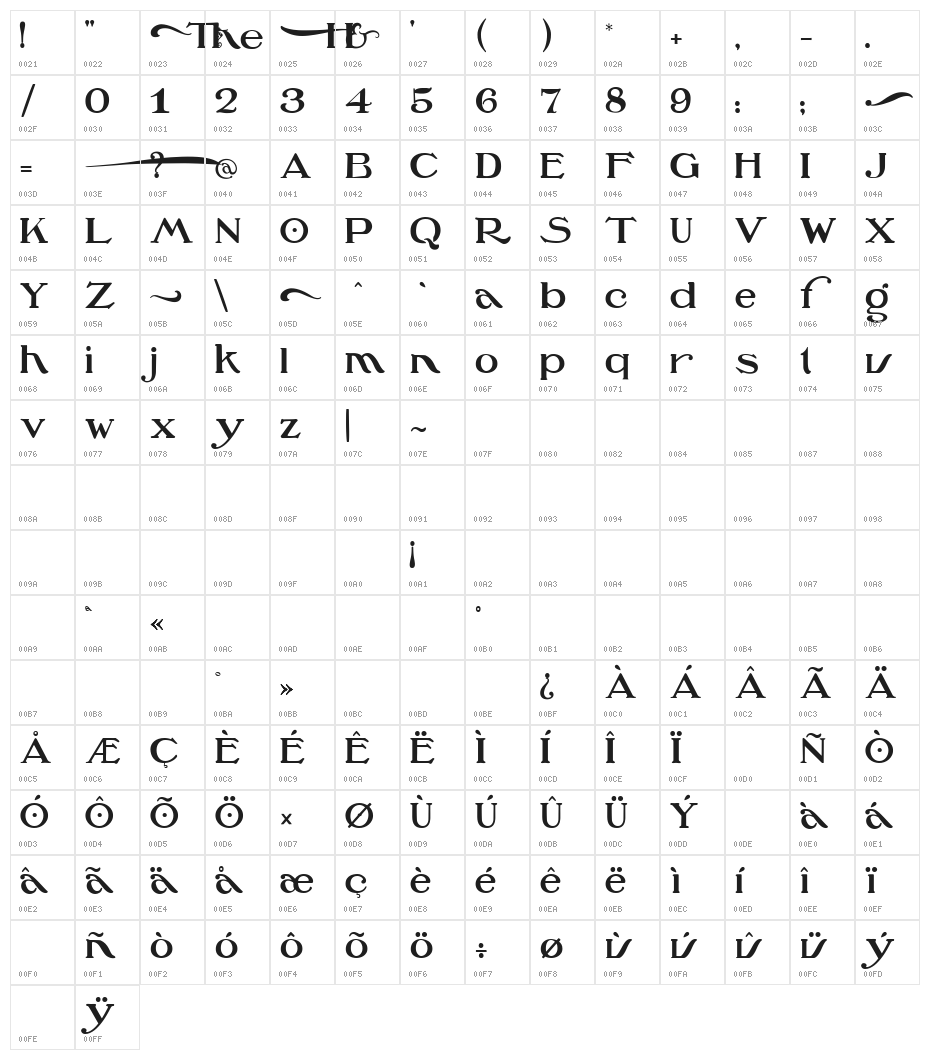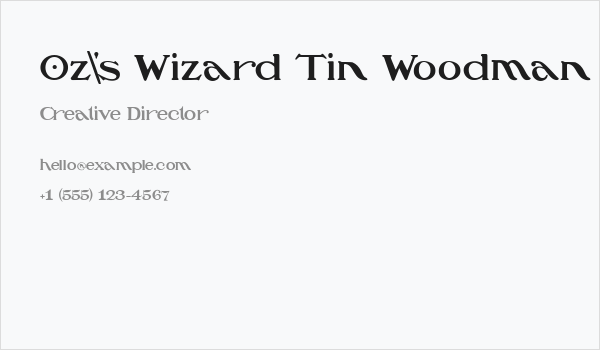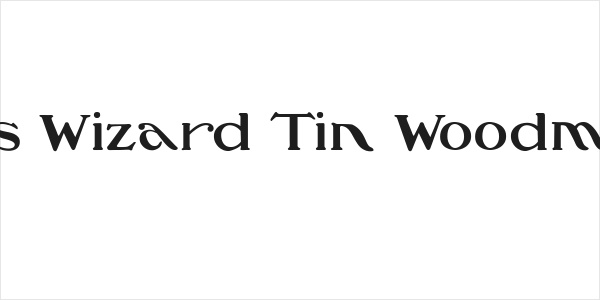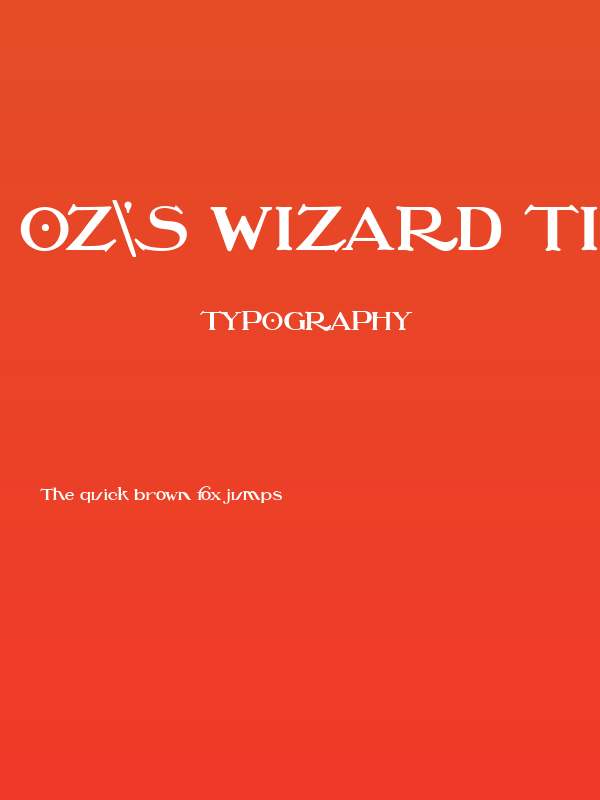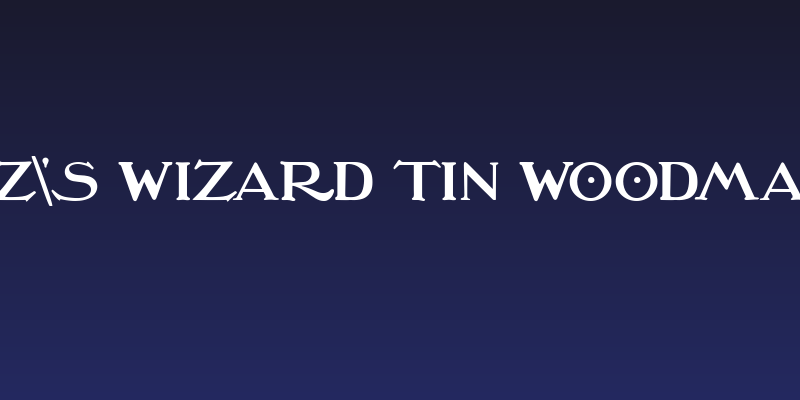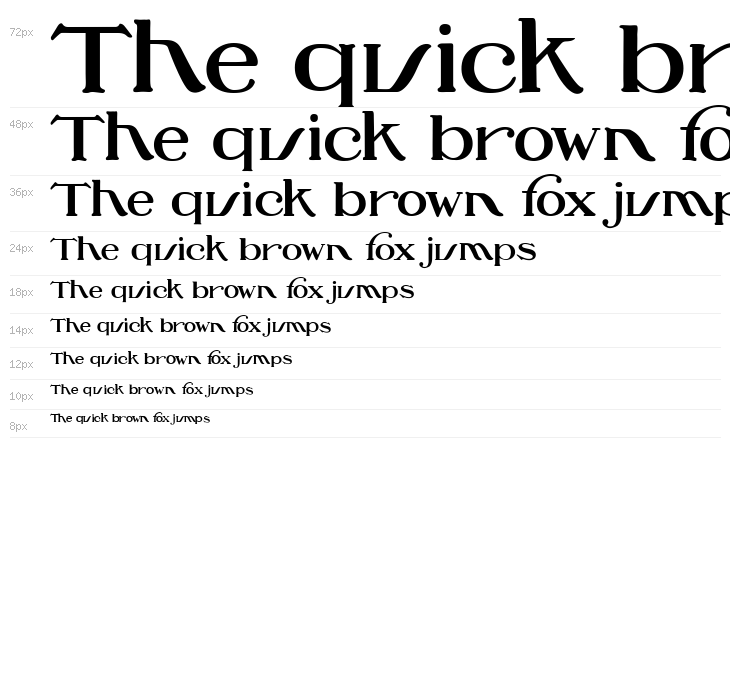
Oz's Wizard Tin Woodman Font
Oz's Wizard Tin Woodman Description
This font features a whimsical and decorative style, reminiscent of classic storybook lettering. The uppercase letters are bold and striking, with unique serifs that add a touch of fantasy. The lowercase letters maintain a playful yet elegant appearance, with smooth curves and distinctive tails. Numbers are bold and consistent with the overall style, ensuring readability while maintaining the font's unique character. Special characters are creatively designed, adding to the font's charm and versatility. This font is perfect for projects that require a touch of magic and creativity.
| Proposed Projects | Ideal for children's books, fantasy-themed designs, invitations, and branding that requires a magical touch. |